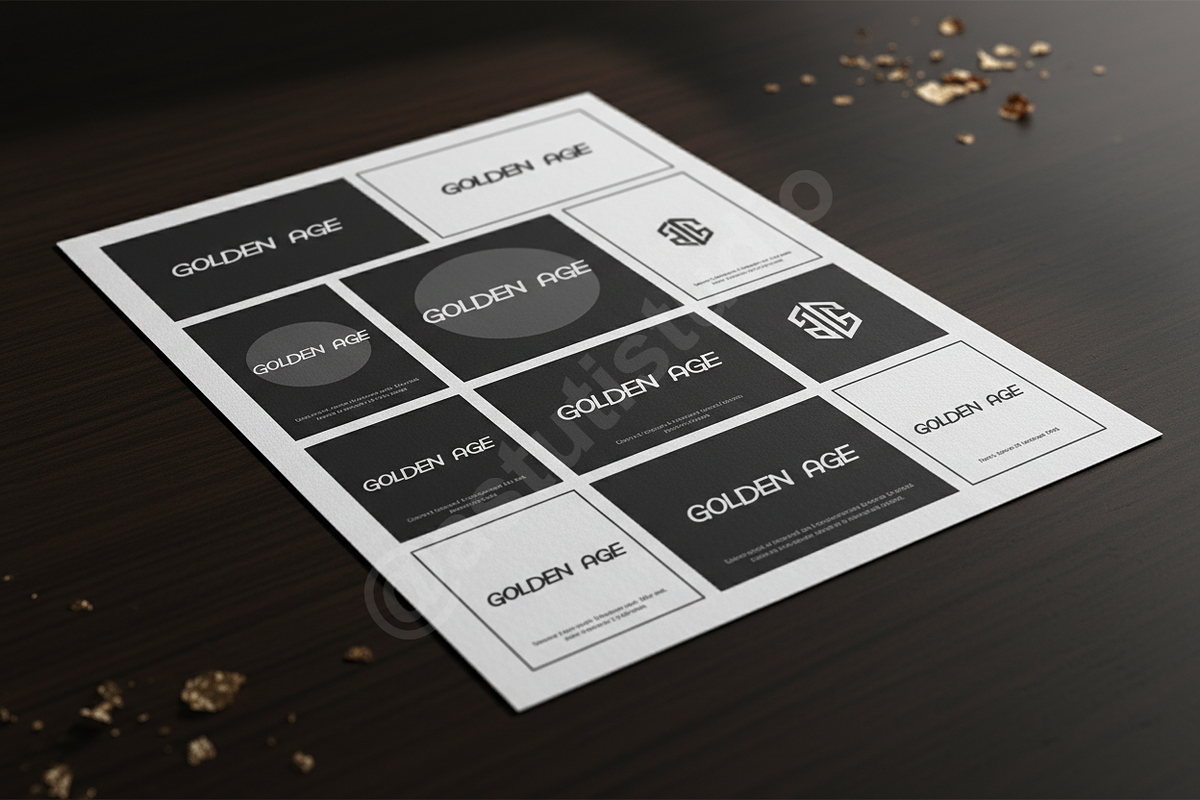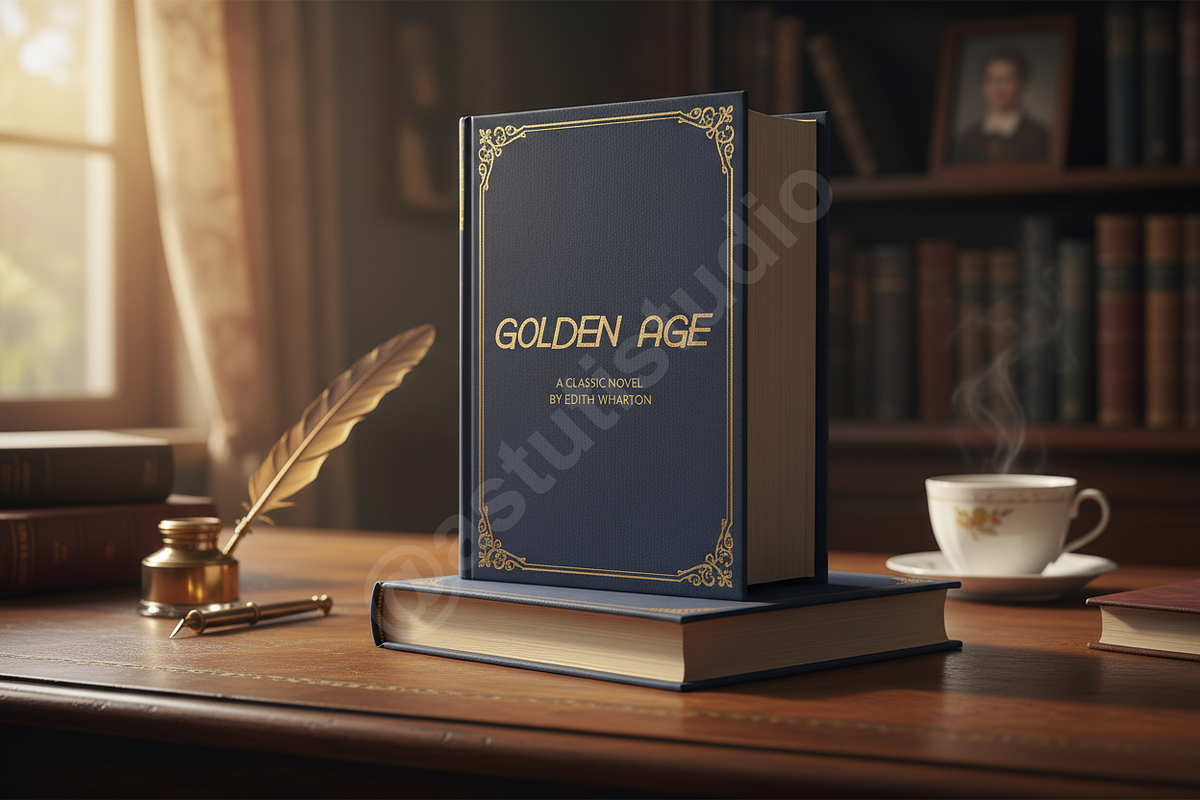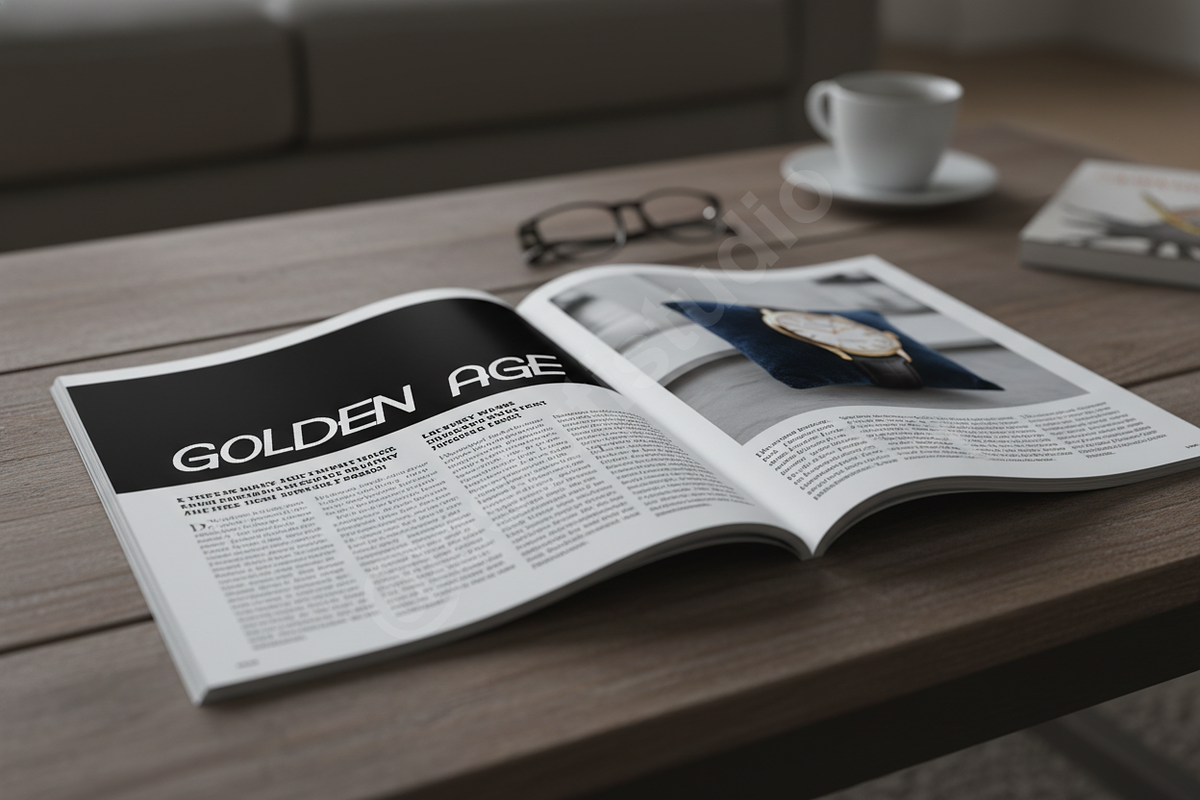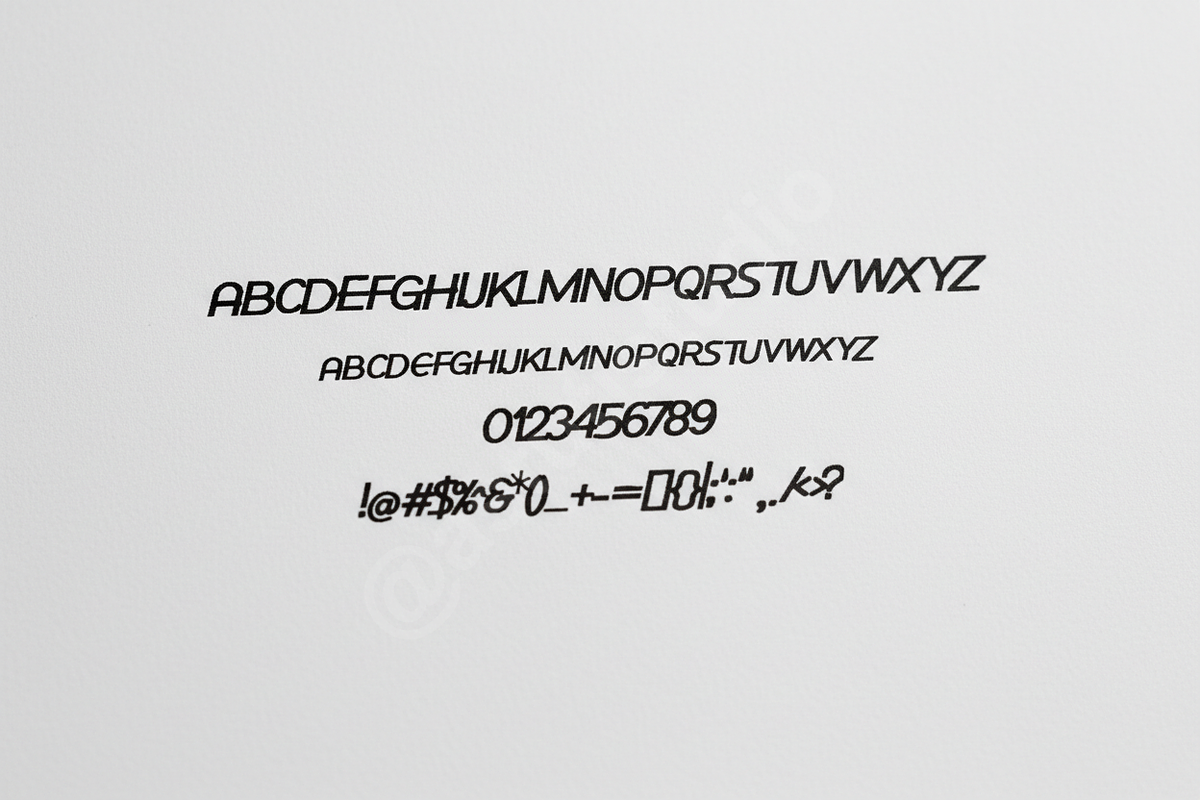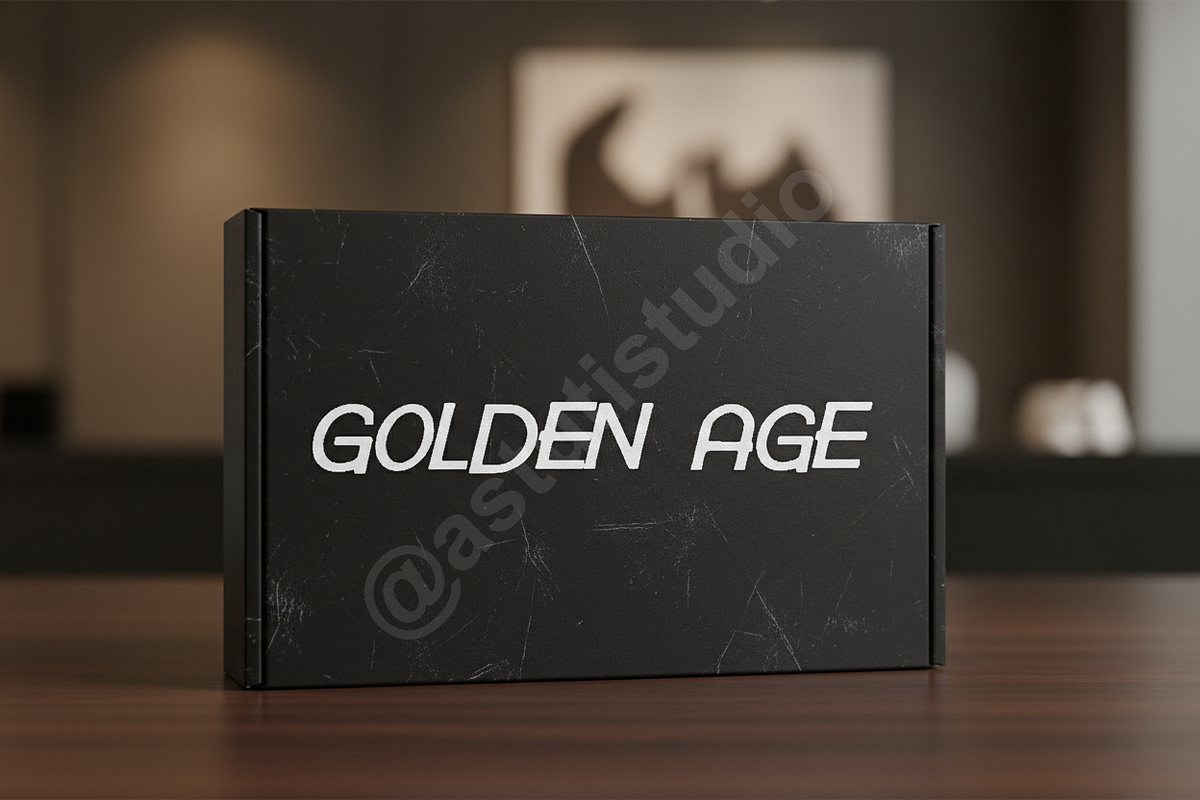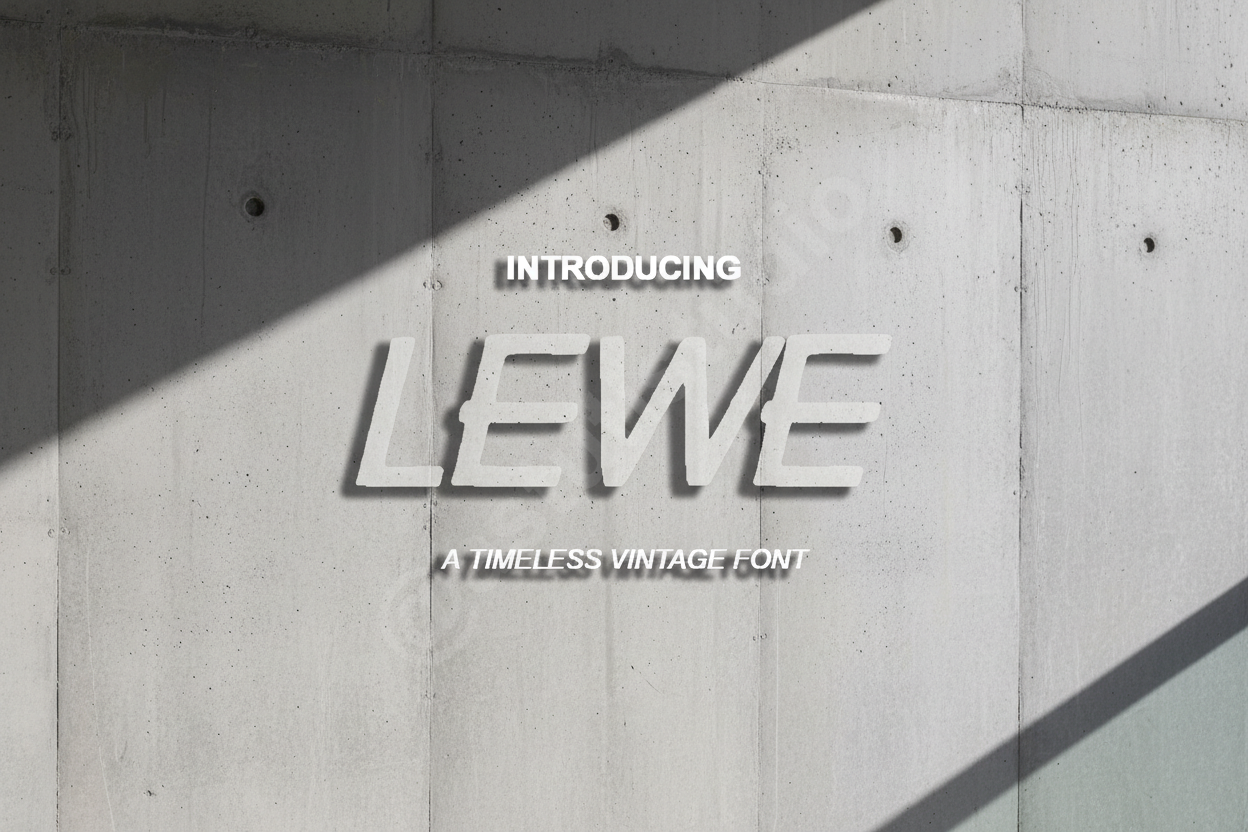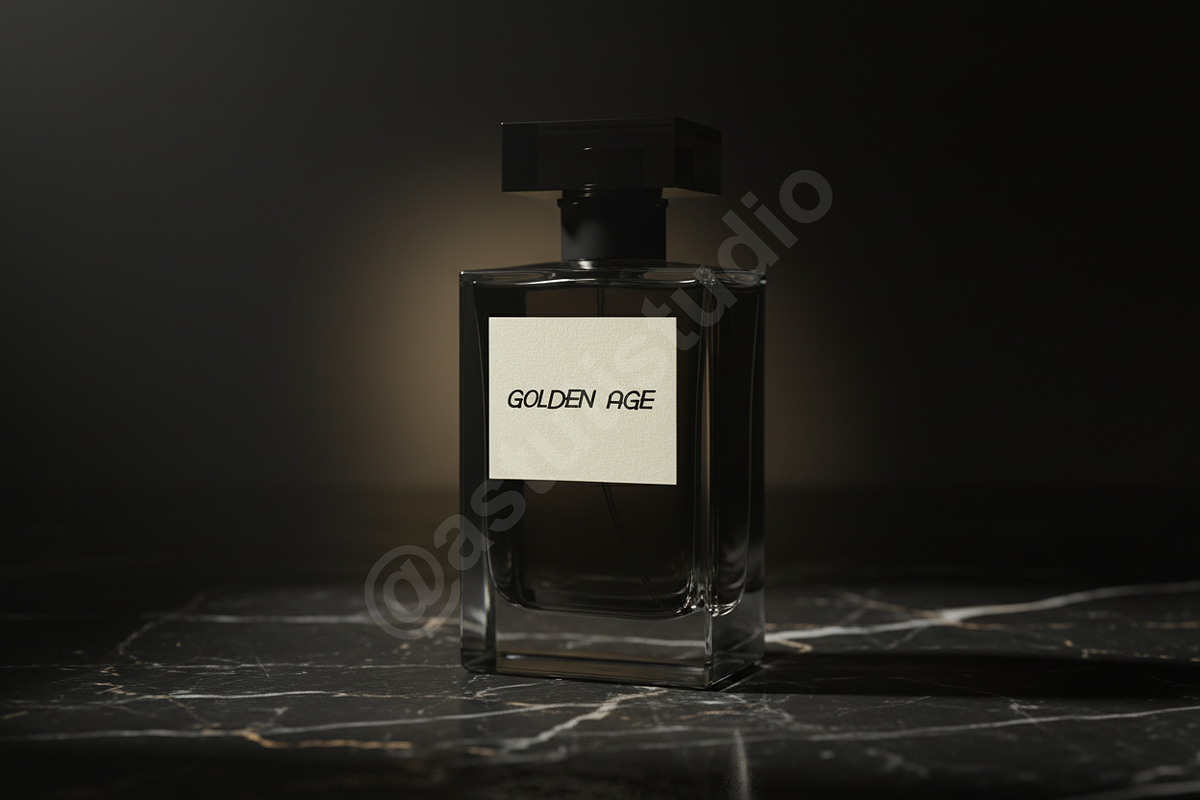
Lewe | Elegant Modern Serif Typeface
INTRODUCTION Lewe is a masterfully crafted serif font designed for the modern aesthetic. Blending timeless elegance with contemporary precision, it provides a high-end feel for luxury branding, editorial design, and sophisticated social media presence. Whether you are crafting a brand identity for a boutique or a layout for a premium magazine, Lewe offers the versatility and class required to elevate your project.
- Sophisticated and high-contrast letterforms
- Unique ligatures and stylistic alternates for custom layouts
- Extensive multilingual support for global reach
- Optimized kerning for professional readability
- Versatile for both digital and print applications
- Full uppercase and lowercase character sets
- Numbers, punctuation, and symbols